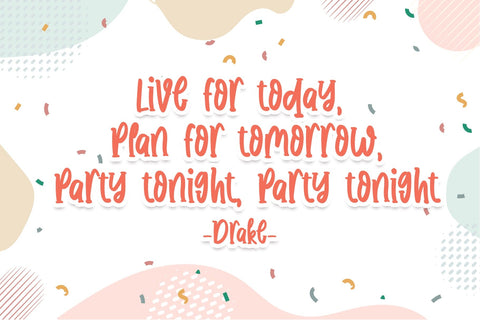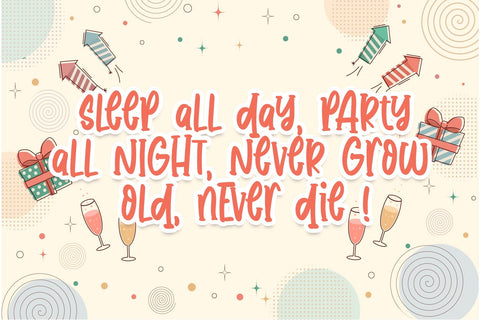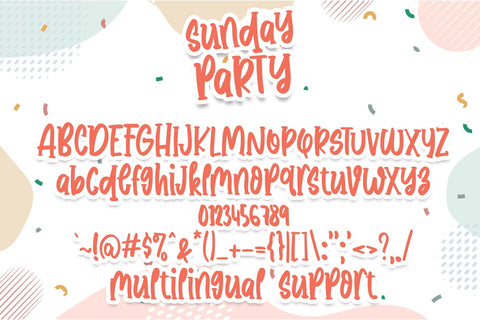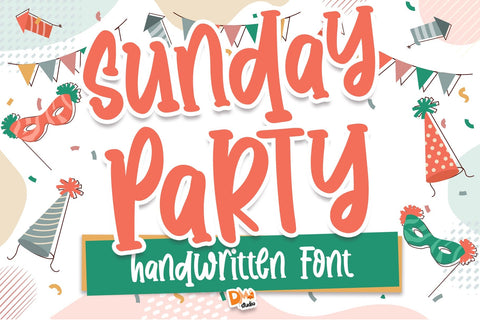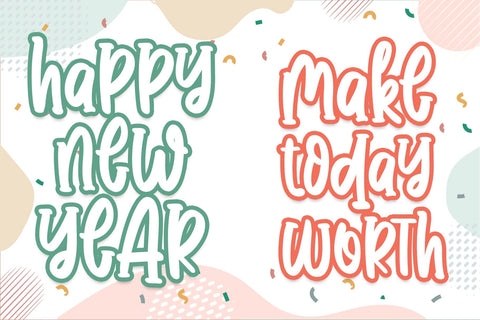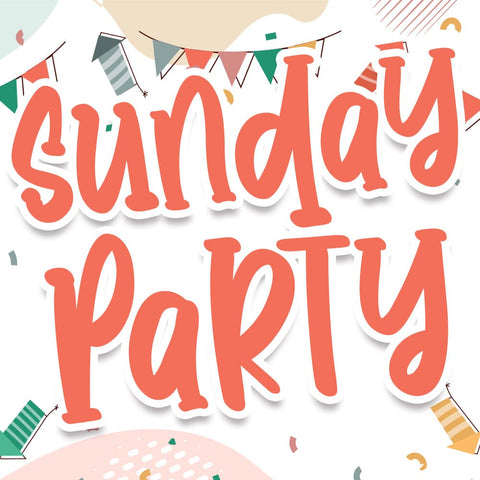
Sunday Party Font
Elevate your designs with the festive and dynamic vibes of the Sunday Party Font. Inspired by the joyous atmosphere of Sunday celebrations, this font adds a playful and lively touch to your projects. Ideal for invitations, banners, posters, and more, the Sunday Party Font is designed to bring a sense of excitement and fun to your creative endeavors.
- Festive and Dynamic Style: The Sunday Party Font exudes a festive and dynamic aesthetic, capturing the spirit of lively celebrations. Its playful letterforms are perfect for conveying a sense of joy and enthusiasm in your designs.
Usage:
- Party Invitations: Create eye-catching and vibrant invitations for parties and special events.
- Event Posters: Design lively posters that capture the energy of Sunday parties and gatherings.
- Social Media Graphics: Craft engaging graphics for social media posts, promoting events and celebrations.
- Greeting Cards: Add a festive flair to greeting cards for birthdays, holidays, and other occasions.
Infuse your designs with the vibrant and celebratory spirit of the Sunday Party Font. Let the playful letterforms and dynamic style bring a touch of joy to your creative projects, making every day feel like a Sunday celebration.